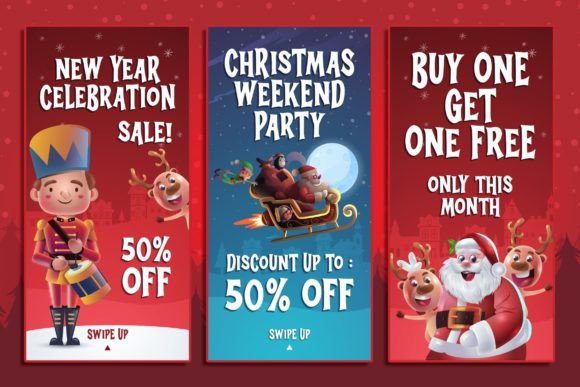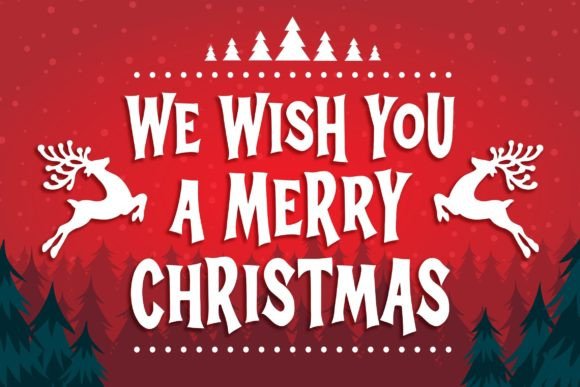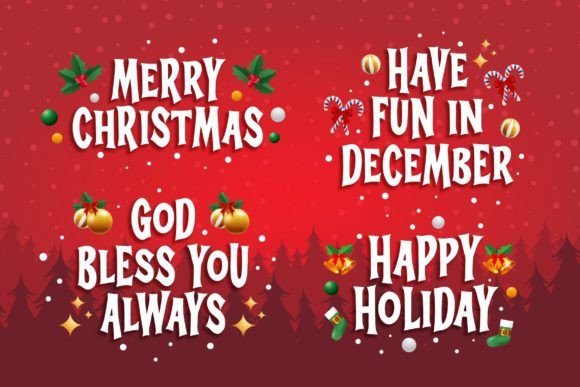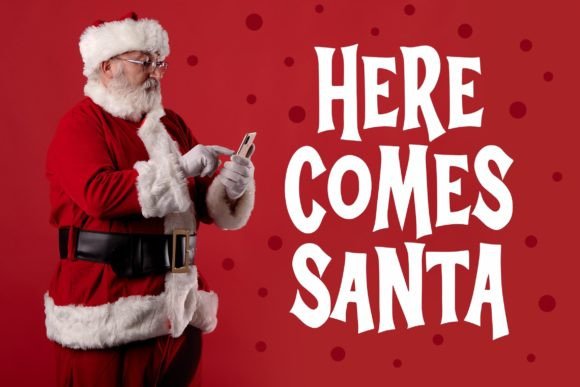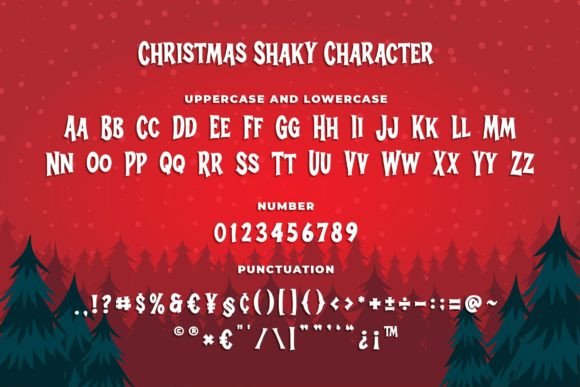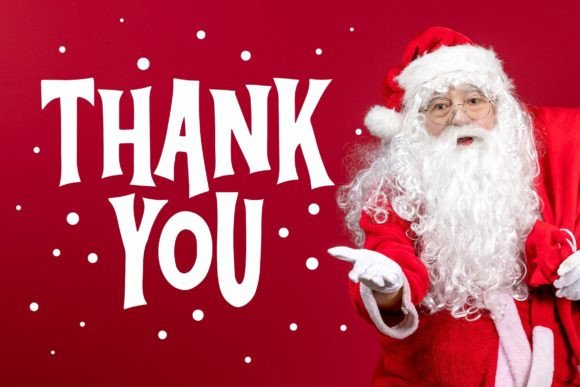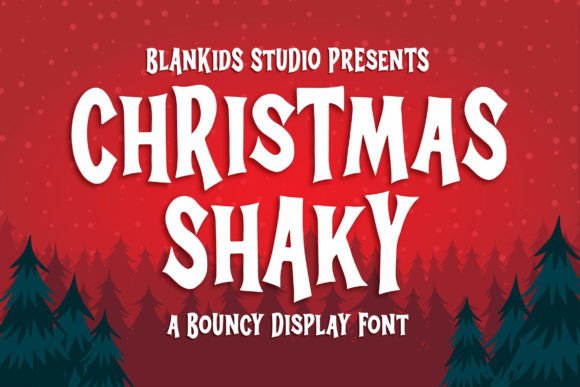
Introducing Christmas Shaky: The Ultimate Bouncy Display Font for Playful Designs
Are you searching for a font that injects a dose of fun and playfulness into your designs? Look no further! We are excited to introduce Christmas Shaky, a bouncy display font that embodies the spirit of playful stone style typography. This delightful font is perfect for designers and crafters seeking to create eye-catching and imaginative designs that inspire creativity and endless fun.
What is Christmas Shaky Font?
Christmas Shaky is a carefully crafted display font that showcases a unique, bouncy style reminiscent of playful stone typography. Its distinctive shaky texture gives it a lively and dynamic feel, making it an ideal choice for designs that require a touch of whimsy and playfulness. Whether you’re working on book covers, children’s books, comics, posters, packaging, merchandise, or logotypes, Christmas Shaky is the perfect companion to bring your creative vision to life.
Key Features of Christmas Shaky Font
- Playful and Bouncy Design: Christmas Shaky boasts a one-of-a-kind shaky texture that adds a playful twist to your designs.
- High Aesthetic Appeal: Crafted with attention to detail, this font features a high level of aesthetics, ensuring your designs stand out with a unique charm.
- Versatile Usage: Suitable for a wide range of applications, including book covers, children’s books, comics, posters, packaging, merchandise, logotypes, and more.
- Inspires Creativity and Imagination: The playful nature of Christmas Shaky encourages creativity and imagination, making it perfect for projects aimed at a younger audience or those seeking to evoke a sense of fun.
Why Choose Christmas Shaky Font?
In a world where design plays a crucial role in capturing attention and conveying messages, choosing the right font is paramount. Christmas Shaky font stands out from the crowd with its unique blend of playfulness and aesthetic appeal. Here are a few reasons why designers and crafters are gravitating towards this delightful font:
- Unique Typography: In a sea of generic fonts, Christmas Shaky offers a refreshing change with its distinctive shaky texture, ensuring your designs don’t go unnoticed.
- Engaging and Fun: The playful vibe of this font is contagious, making it perfect for projects that aim to engage and entertain.
- Easy to Read: Despite its unconventional style, Christmas Shaky maintains a high level of readability, making it suitable for both headlines and body text.
- Customizable: Feel free to experiment with different sizes, colors, and effects to make Christmas Shaky your own and match it perfectly with your design theme.
Christmas Shaky is more than just a font – it’s a design statement. With its playful shaky texture, high aesthetic appeal, and versatile usage, it’s an excellent choice for designers and crafters looking to infuse their projects with a sense of fun and creativity. Whether you’re working on a children’s book, a comic, or a poster, Christmas Shaky is sure to bring a smile to your audience’s faces. So why wait? Download Christmas Shaky today and let your designs bounce with joy and creativity!